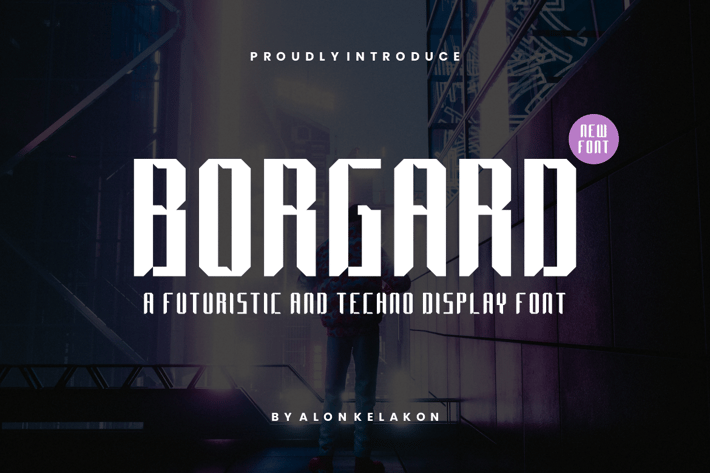
Borgard Futuristic and Technology Font
Borgard Futuristic and Technology Font Font is unique . Ready to use for your design like labeling, movie sceen, poster, movie title, gigs, album covers, logos, and much more.